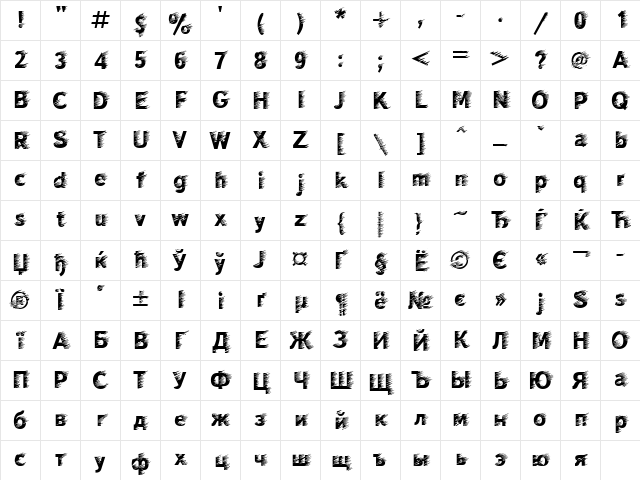
WindC Regular Free Font
WindC Regular
Design Context for WindC
WindC is a composed and adaptable typeface that performs quietly and consistently across a wide range of design contexts.